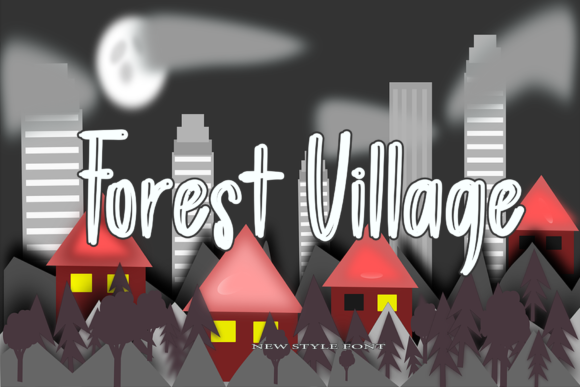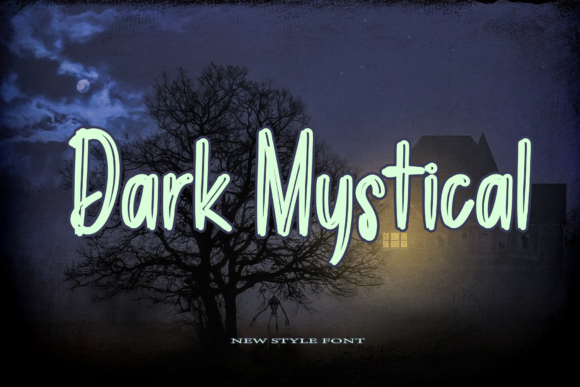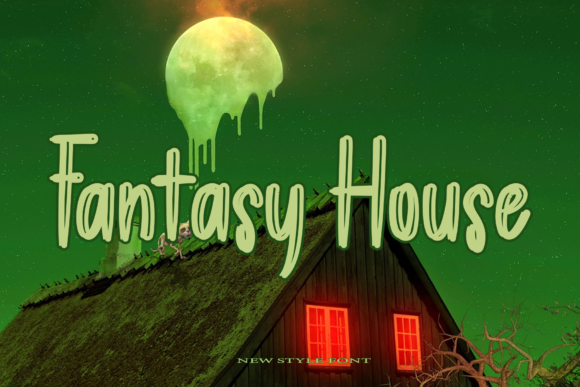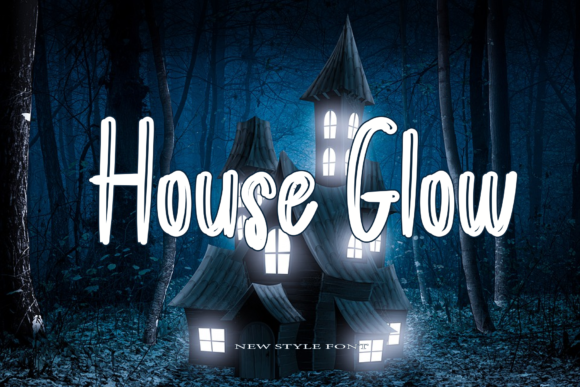
Dream House Font: The Perfect Addition to Your Design Arsenal
Are you a designer or crafter looking for a font that can add a touch of sweetness and friendliness to your projects? Look no further than the Dream House font! This beautiful handwritten font is perfect for a wide range of designs, from home decor and crafting to branding and advertising.
What Makes Dream House Font So Special?
Dream House is a sweet and friendly handwritten font that boasts a natural and unique style. Its effortless charm makes it incredibly fitting to a large pool of designs, and the only limit is your imagination! Whether you’re creating a logo, a poster, or a social media graphic, Dream House font is sure to bring a smile to your audience’s faces.
Key Features of Dream House Font
- Handwritten style: Dream House font has a beautiful, handwritten style that’s perfect for creating personal and approachable designs.
- Natural and unique: The font’s natural and unique style makes it stand out from more traditional fonts, adding a touch of personality to your designs.
- Versatile: Dream House font is incredibly versatile, making it suitable for a wide range of designs, from home decor and crafting to branding and advertising.
- Easy to read: Despite its handwritten style, Dream House font is easy to read, making it perfect for body text and headlines.
Uses for Dream House Font
Dream House font is perfect for a wide range of projects, including:
- Home decor designs: Add a touch of warmth and personality to your home decor designs, from wall art and signs to invitations and party decor.
- Crafting projects: Dream House font is perfect for crafting projects, such as knitting patterns, sewing tutorials, and handmade cards.
- Branding and advertising: Use Dream House font to create unique and memorable brand identities, from logos and business cards to social media graphics and adverts.
- Stationery and paper crafts: Add a touch of sweetness and friendliness to your stationery and paper crafts, from journals and planners to greeting cards and invitations.
Tips for Using Dream House Font
Here are a few tips for getting the most out of Dream House font:
- Experiment with different sizes and colors: Dream House font looks great in a range of sizes and colors, so don’t be afraid to experiment and find the perfect combination for your design.
- Pair with other fonts: Dream House font pairs beautifully with other fonts, so try combining it with a bold font for headlines or a clean font for body text.
- Use it for headlines and body text: Dream House font is easy to read, making it perfect for both headlines and body text.